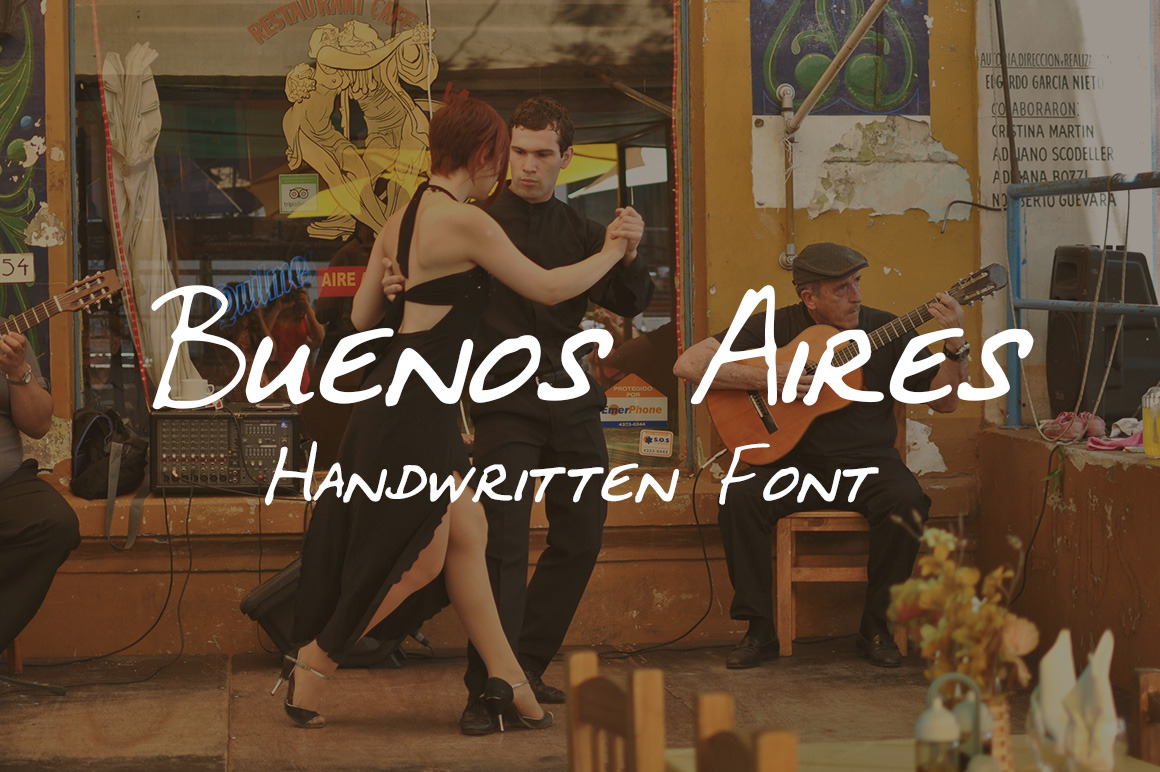
Buenos Aires - Handwritten Font
Simple and playful handwritten font in all caps. Versatile for a variety of uses including - social media, branding, logo, stationary, invitations, and quotes.